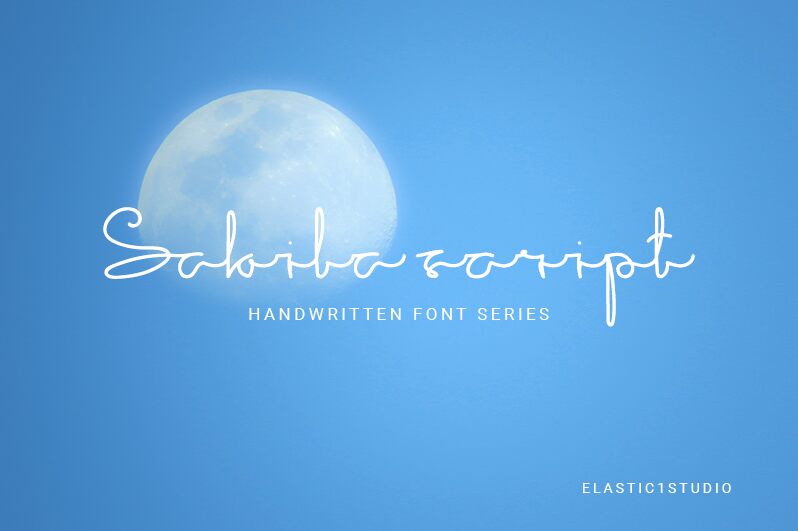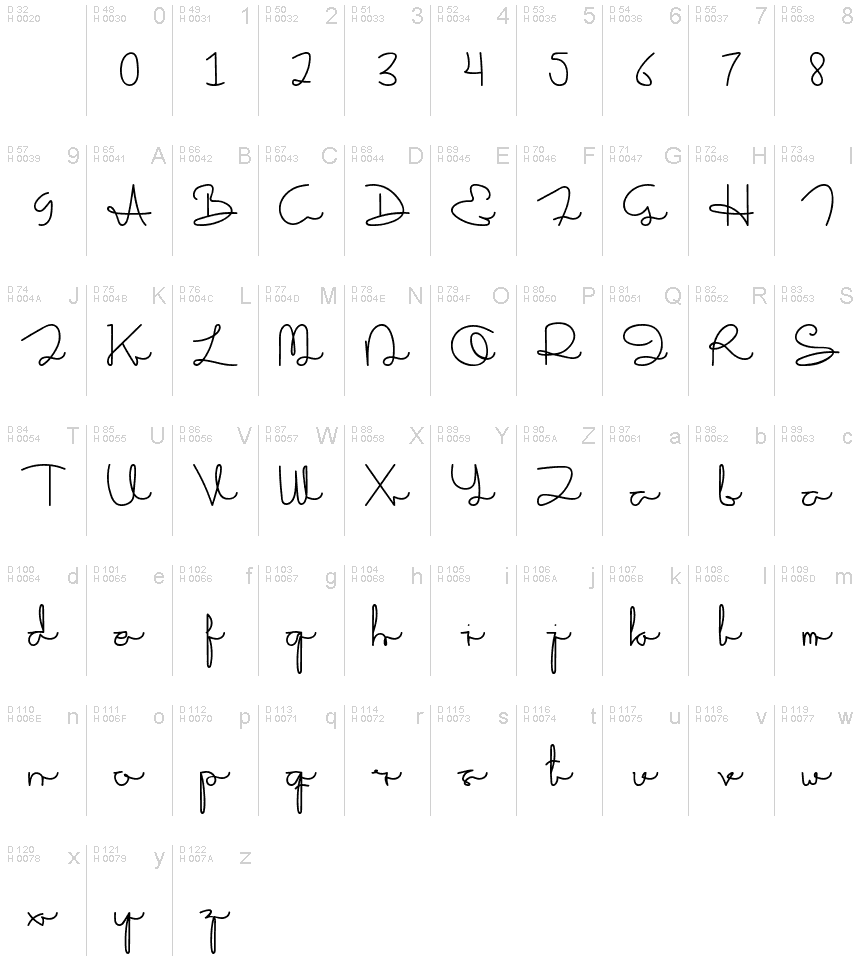
Sakila Script
Sakila Script Font is A modern & Looks Elegant, Stylish and Perfect for any awesome projects.
Sakila Script Font is perfect for branding projects, logo, wedding designs, social media posts, advertisements, product packaging, product designs, label, photography, watermark, invitation, stationery and any projects that need handwriting taste.